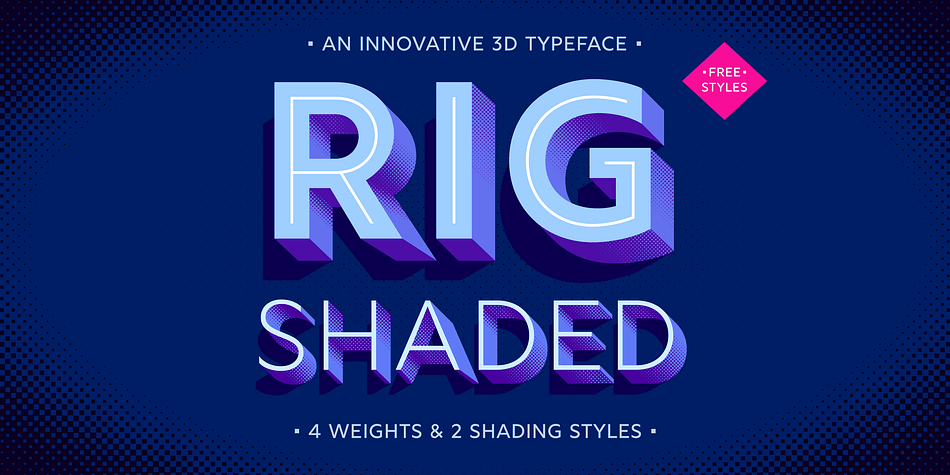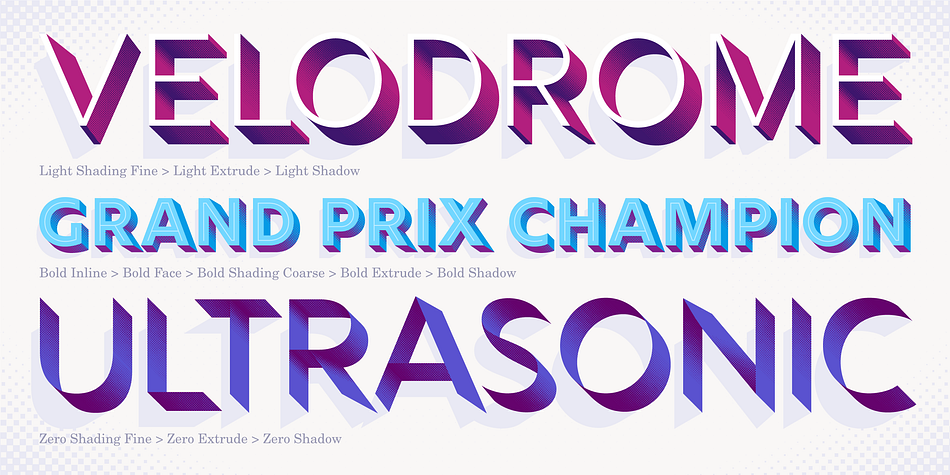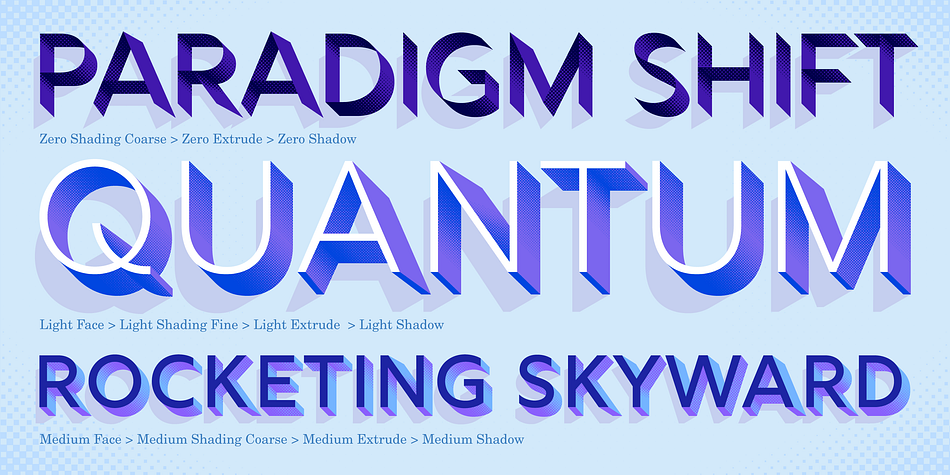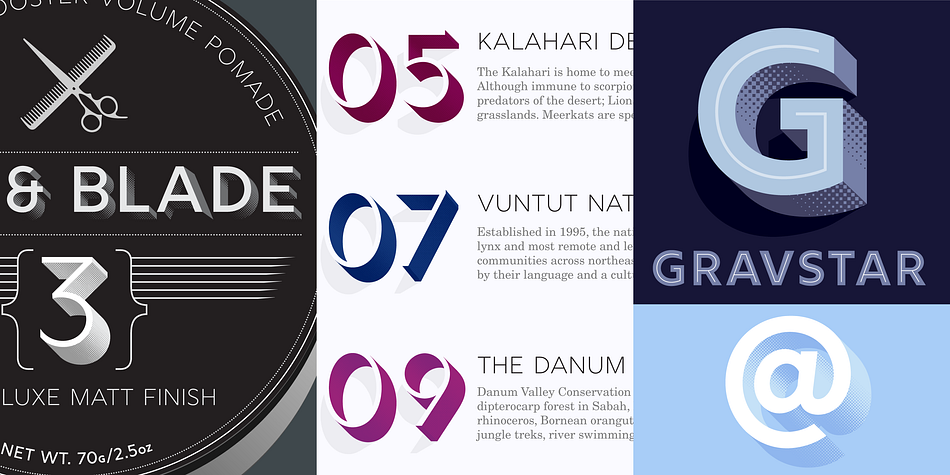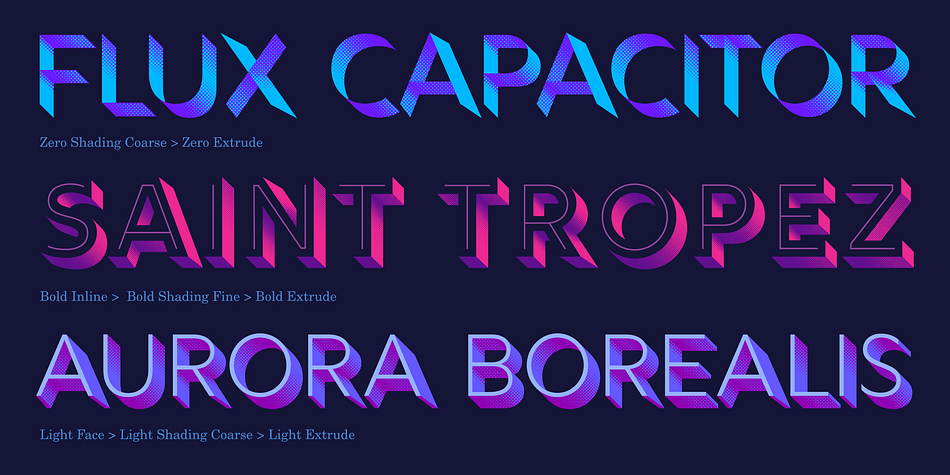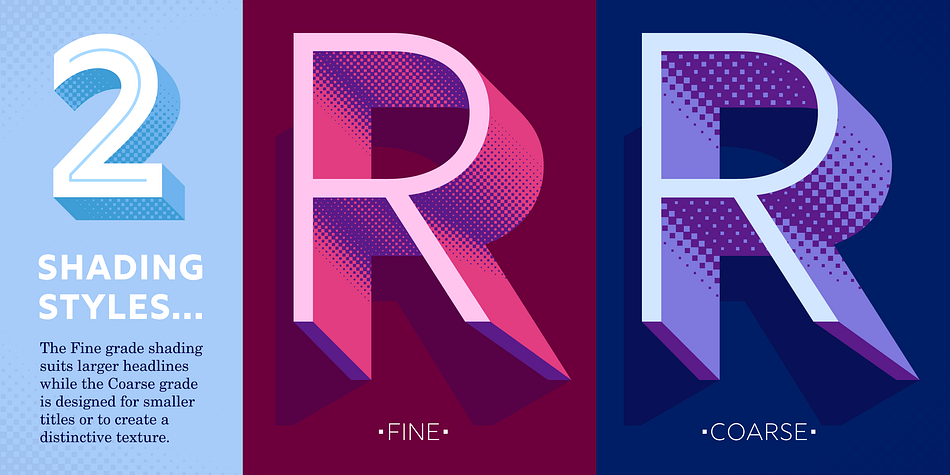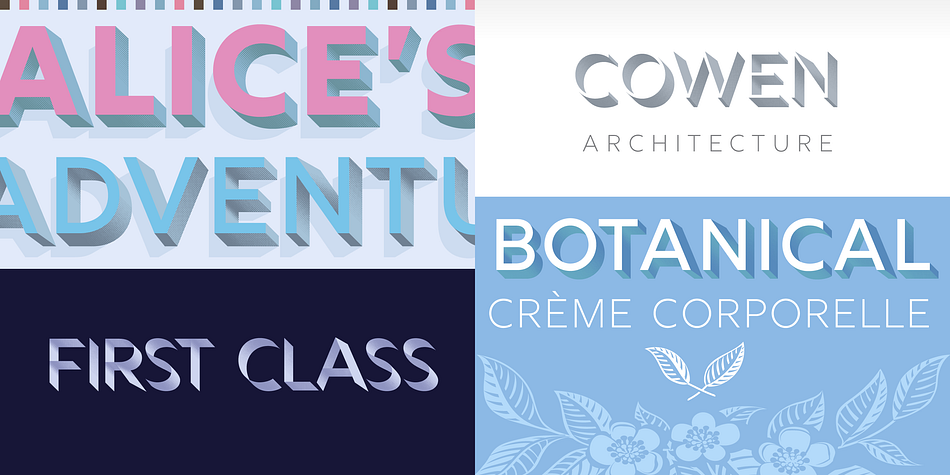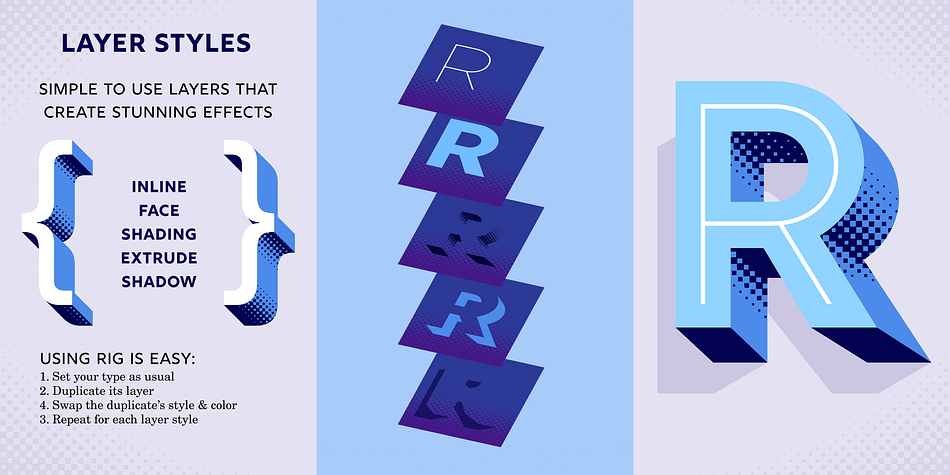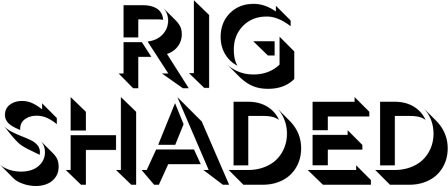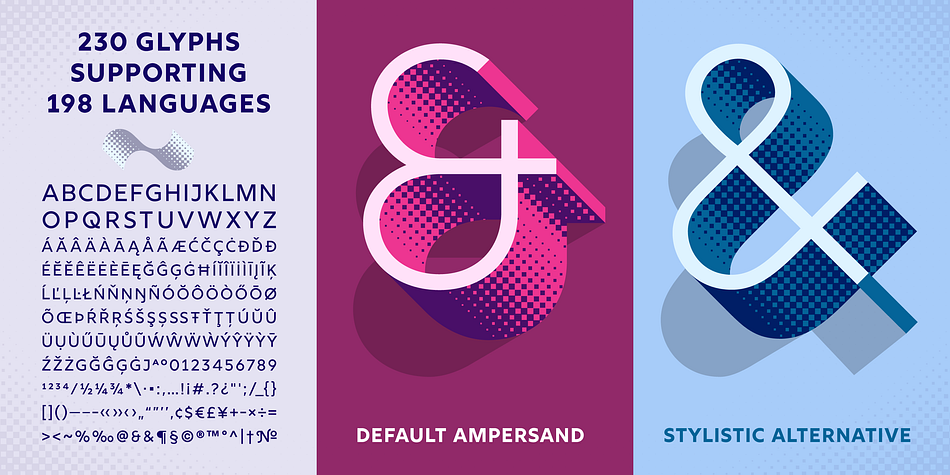
Influenced by custom lettering, Rig Shaded features ingenious halftone shading and a razor sharp ‘zero’ weight. Its clarity of design makes it the ideal candidate for 3D text.
Rig Shaded is a 3D type family with a geometric sans serif at its heart. As its name suggests, Rig is designed as a framework to support a range of striking 3D effects.
It has four versatile weights including a unique ‘zero’ weight. Each has two grades of distinctive halftone shading, Fine and Coarse, which emphasize Rig’s solid appearance.
Rig developed from my quest to find ideal letter shapes for a shaded typeface while retaining their geometric principles and legibility. Each character has been designed to ensure maximum clarity and harmony when combined with 3D effects. The extrude and shaded styles have been handcrafted to produce a consistent weight and tone.
Rig’s character set includes 230 glyphs, supporting 198 languages, including all Western, Central and South Eastern European languages.